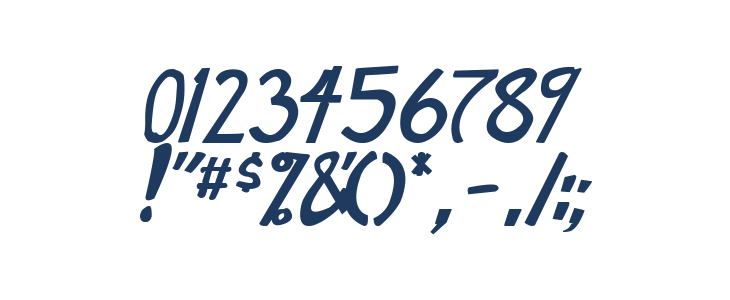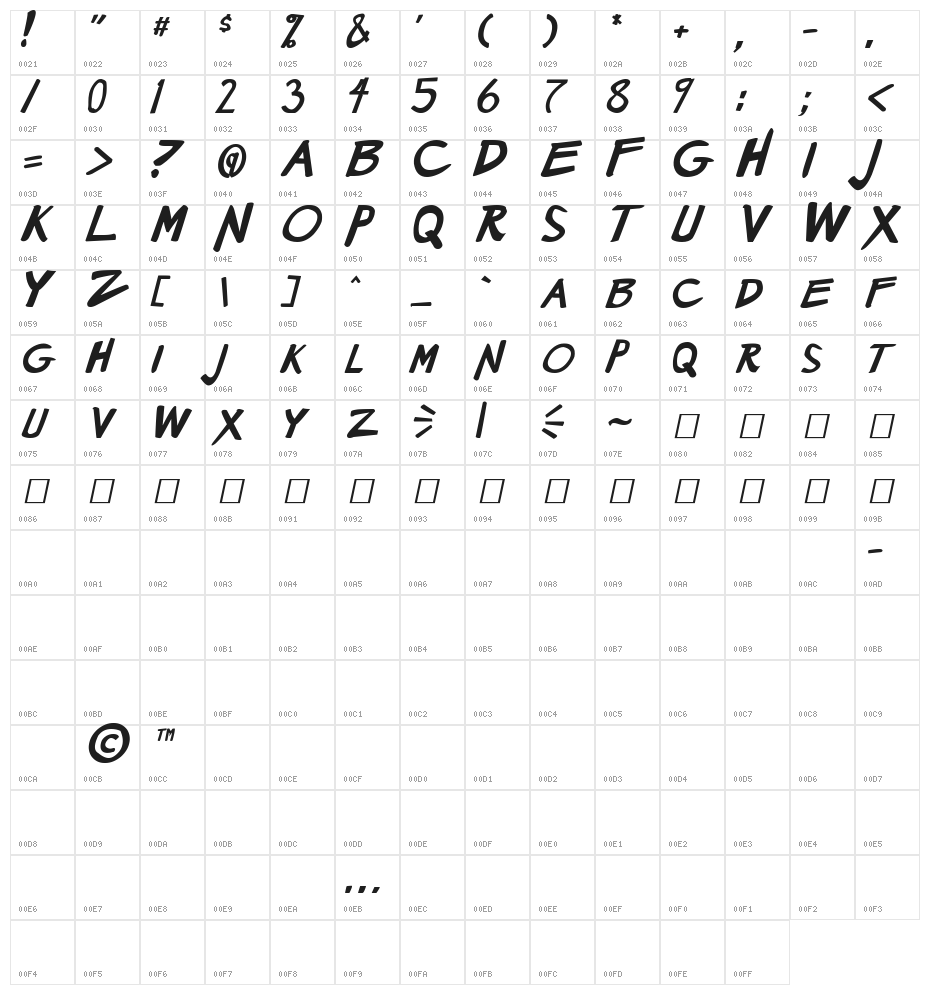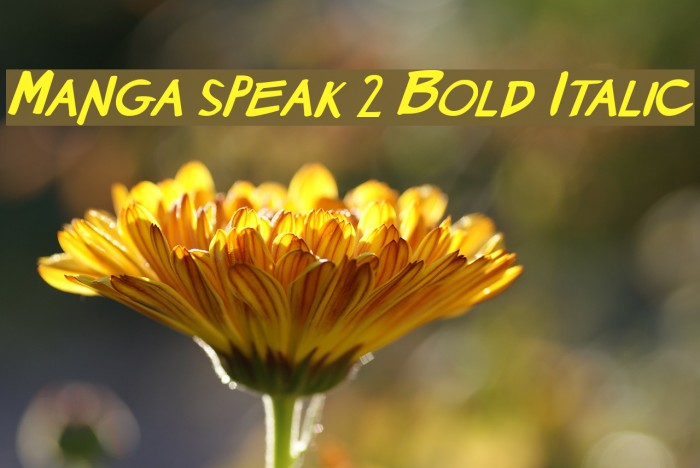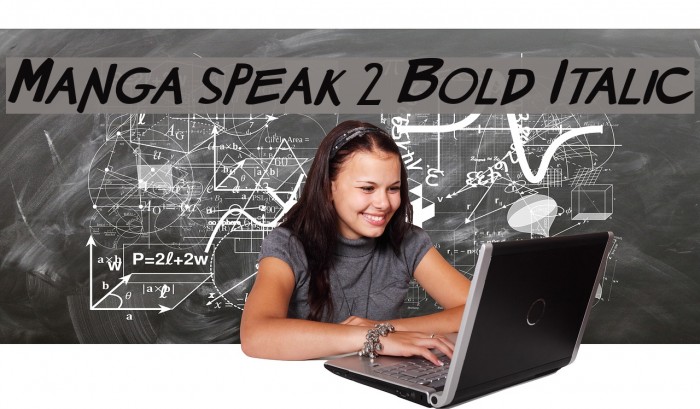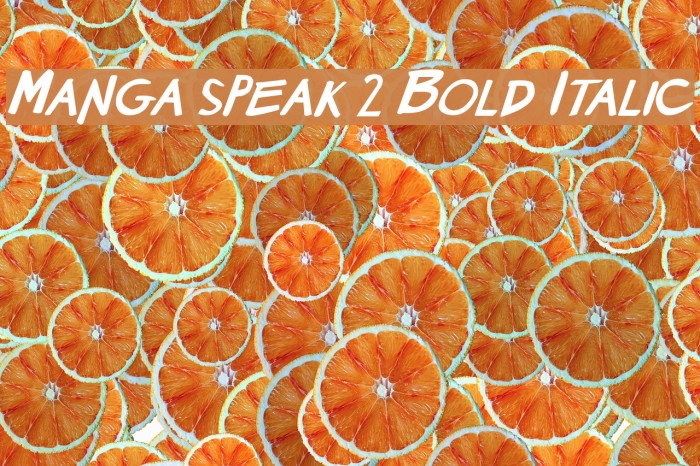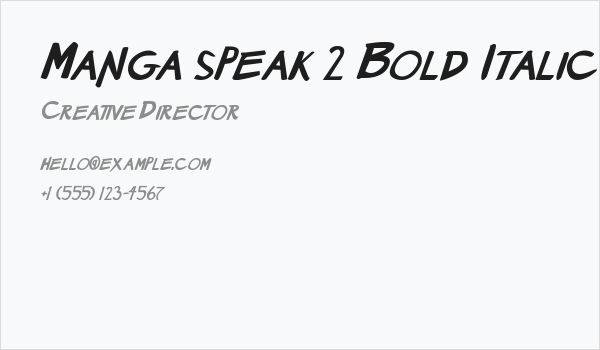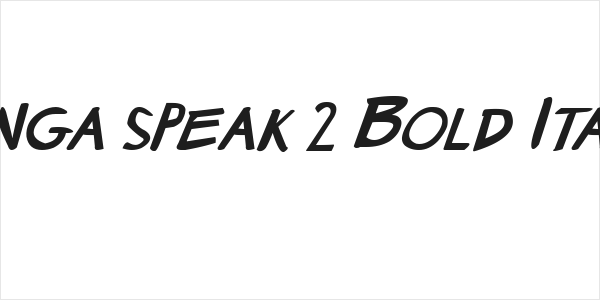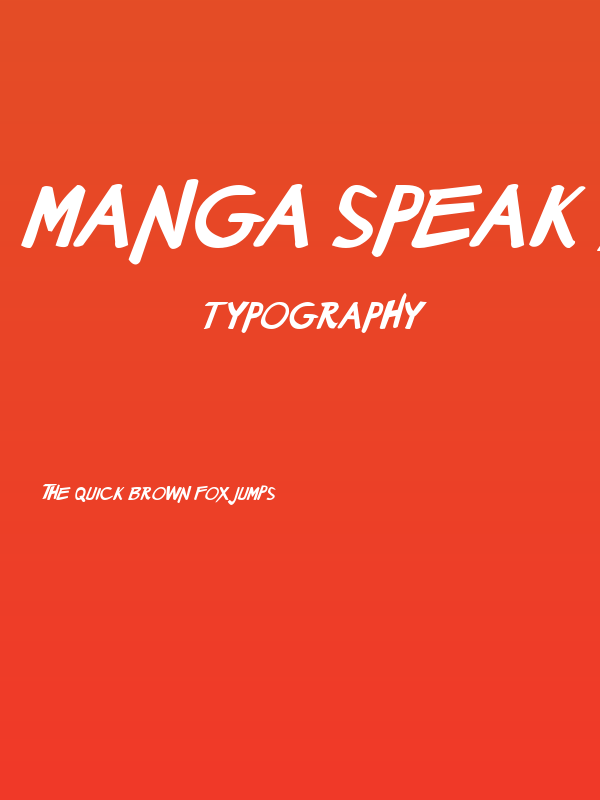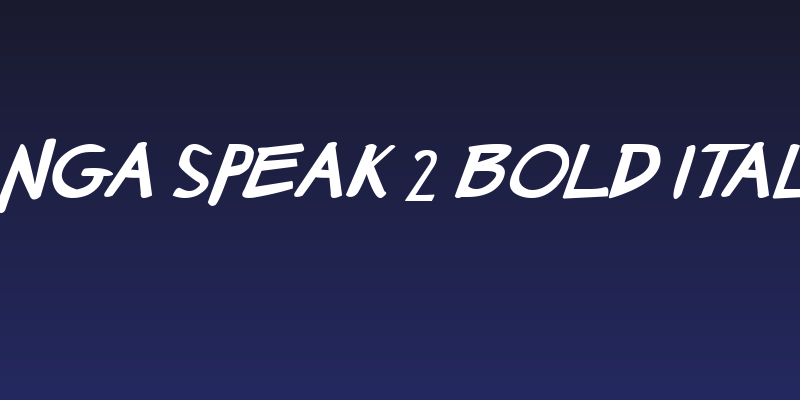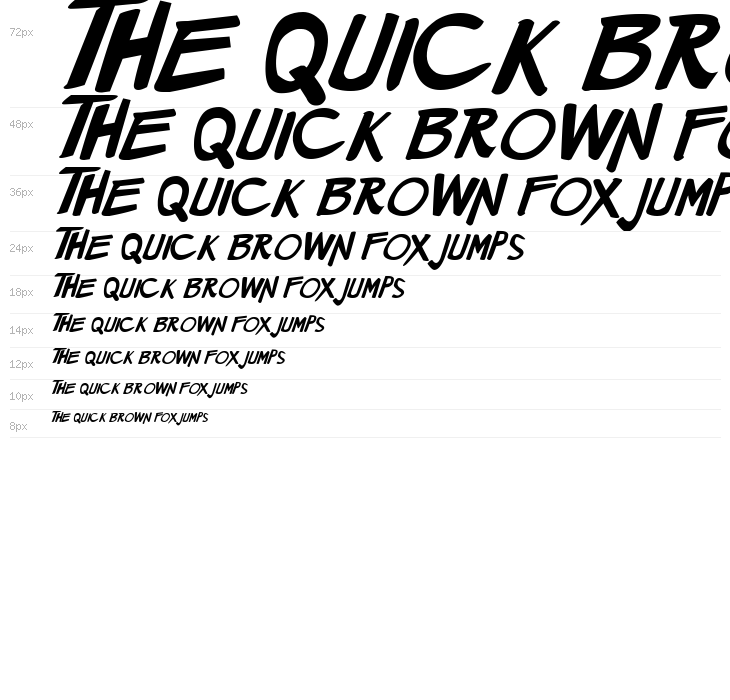
Manga speak 2 Bold Italic Font
Manga speak 2 Bold Italic Description
This font features a bold and dynamic style with a strong italic slant, giving it a sense of motion and energy. The characters are thick and robust, with a slightly condensed form that enhances their boldness. The strokes are smooth and fluid, contributing to a modern and playful aesthetic. The uppercase and lowercase letters maintain a consistent style, while the numerals and special characters are designed to complement the overall look. This font's unique flair makes it stand out, perfect for projects that require a touch of creativity and impact.
| Proposed Projects | Ideal for comic books, graphic novels, posters, and creative branding. |